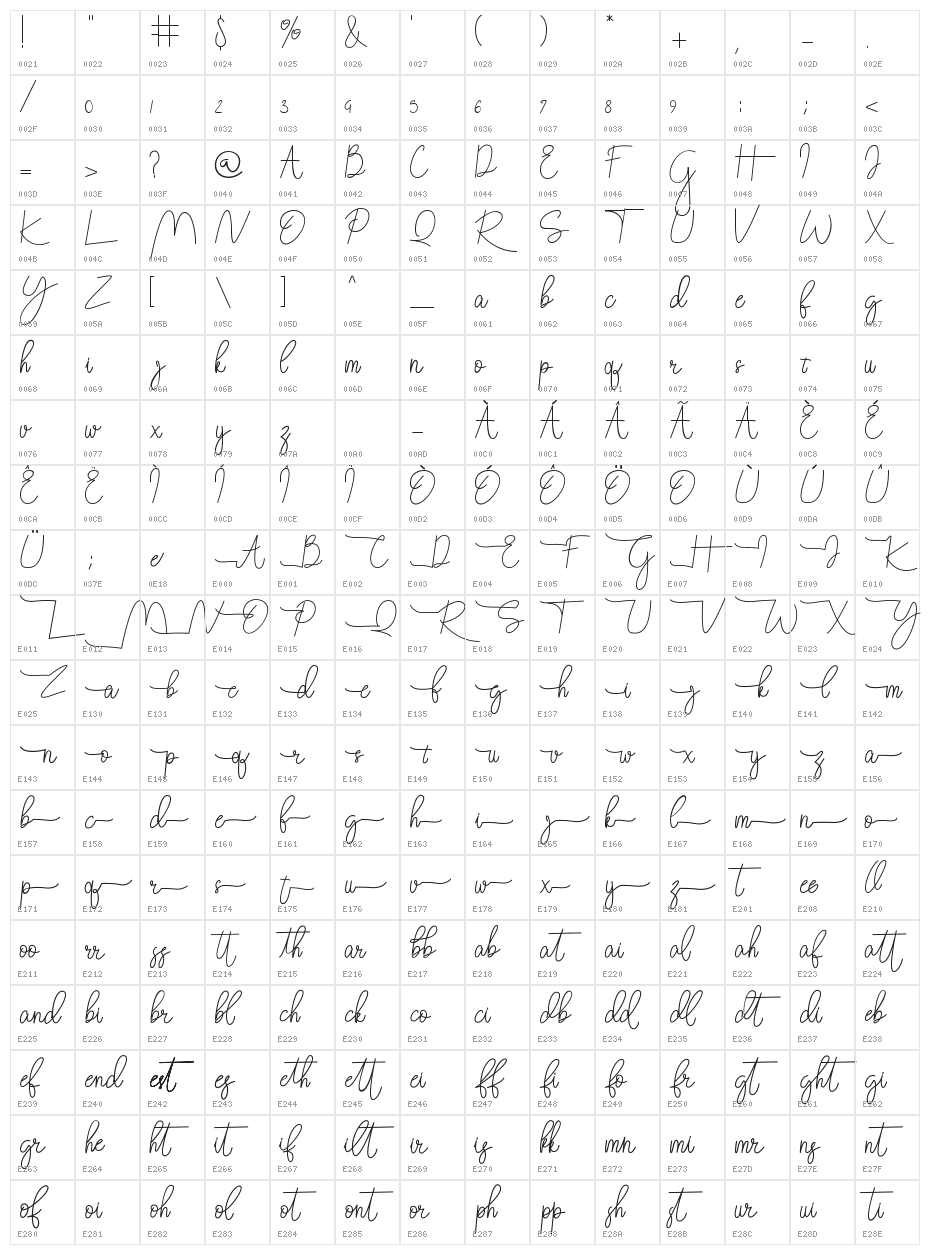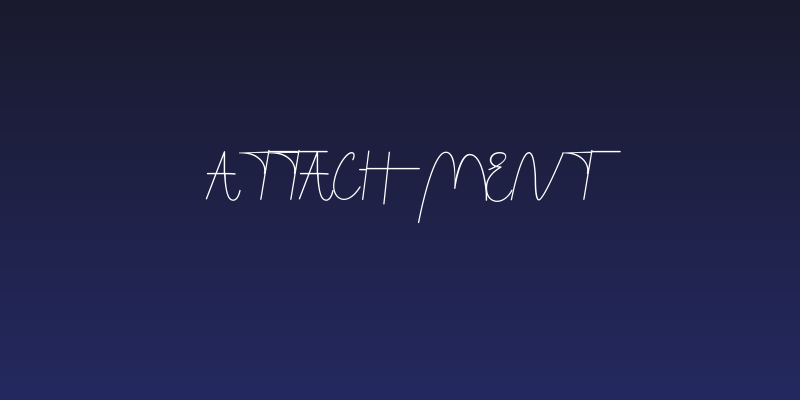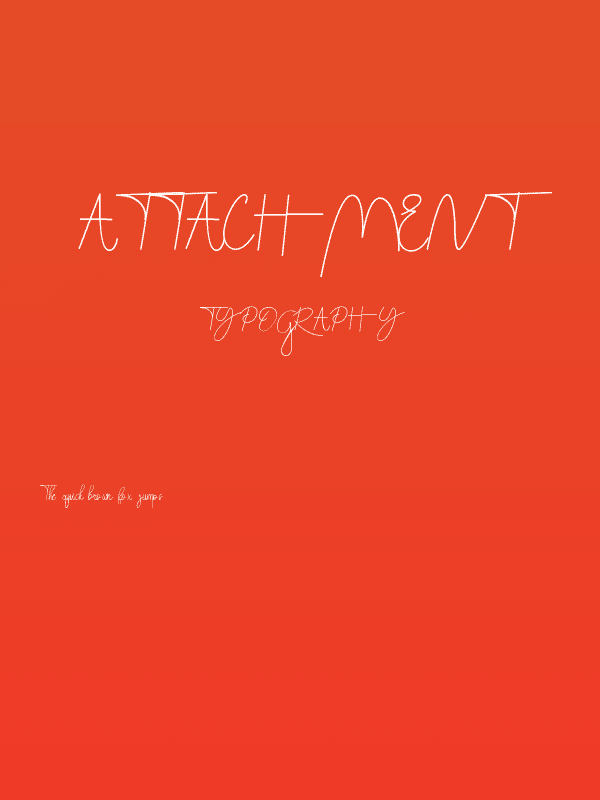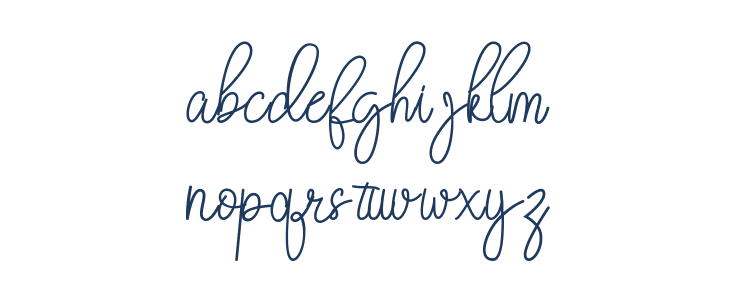
Attachment Font
Attachment Description
This font features a flowing, cursive style that mimics elegant handwriting. The uppercase letters are tall and slender, with graceful loops and curves that give them a sophisticated appearance. The lowercase letters maintain a consistent flow, with some letters connecting seamlessly to the next, enhancing the script-like quality. Numbers and special characters are designed to match the overall aesthetic, with a delicate balance between formality and playfulness. The font's thin strokes and smooth lines make it ideal for projects that require a touch of elegance and personal flair.
| Overall Style | Elegant, Handwritten |
| Proposed Projects | Ideal for wedding invitations, greeting cards, personal branding, and elegant product packaging. |